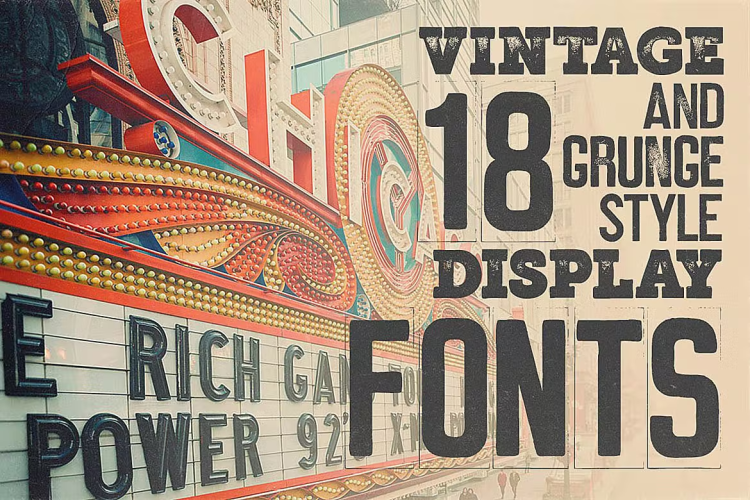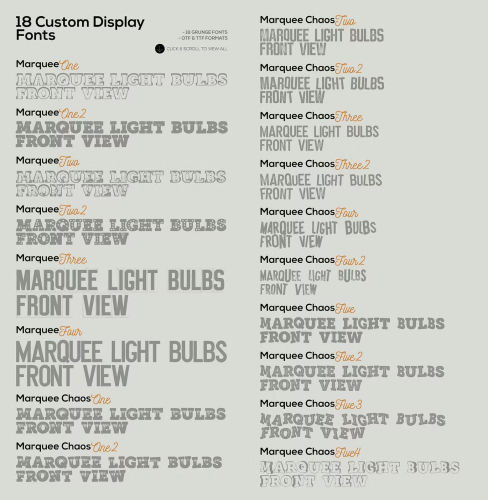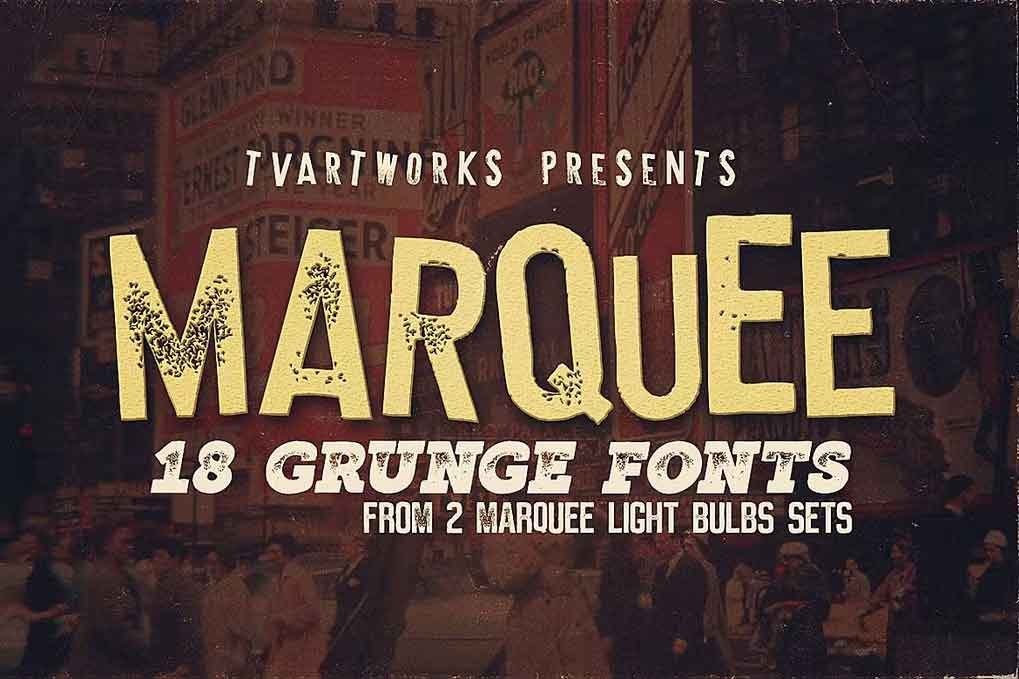
Marquee 18 Grunge Font
You’ll find 18 grunge style display fonts in this bundle – so if you need just grunge fonts this bundle is something for you
Where Marquee 18 Grunge Font works best
Marquee 18 Grunge Font gives long-form text a classic, trustworthy rhythm — ideal for magazine spreads, annual reports and book interiors.
Pair Marquee 18 Grunge Font with generous letter-spacing for wordmarks in fashion, hospitality, wine and jewellery branding.
Use Marquee 18 Grunge Font for slide titles in Keynote, PowerPoint or Google Slides to add authority without looking dated.
What is Marquee 18 Grunge Font good for?
Marquee 18 Grunge Font is a Serif Fonts typeface tagged Display, Professional, Serif, Serif Fonts. It works well for headlines, logos, posters, social media graphics and branding projects that need a distinctive serif fonts look.